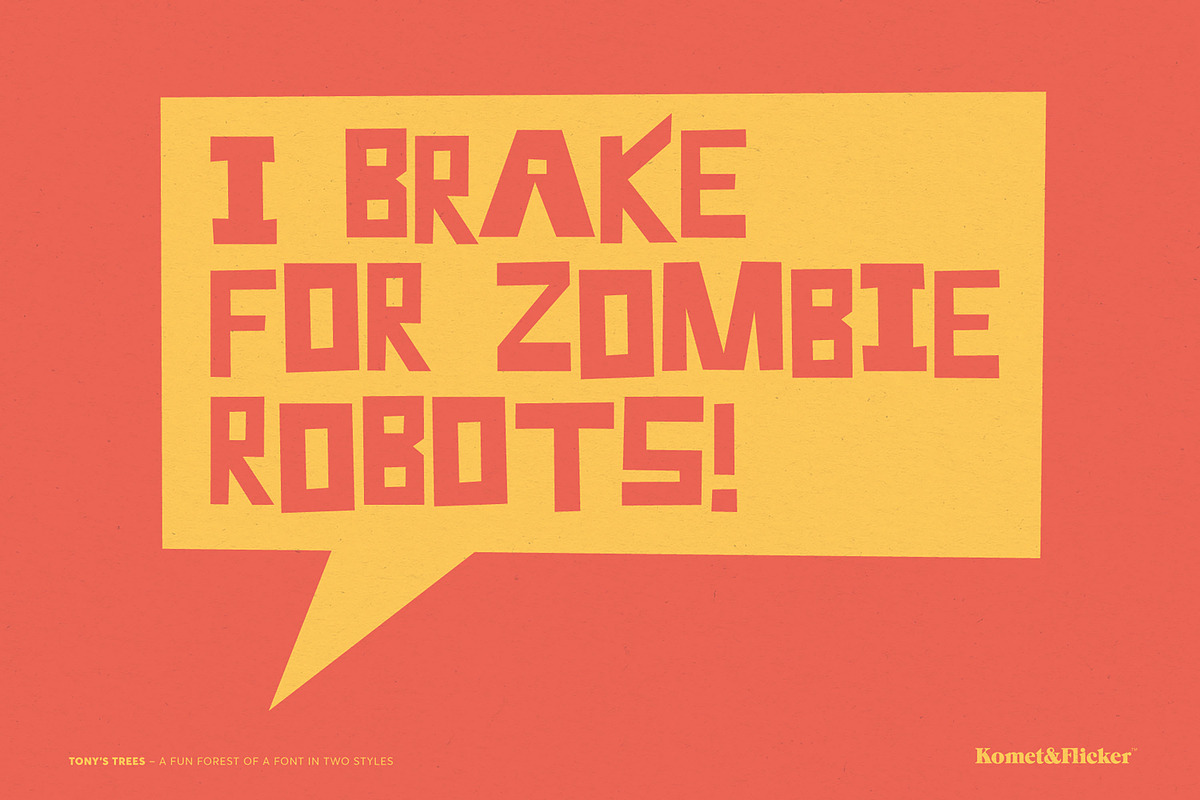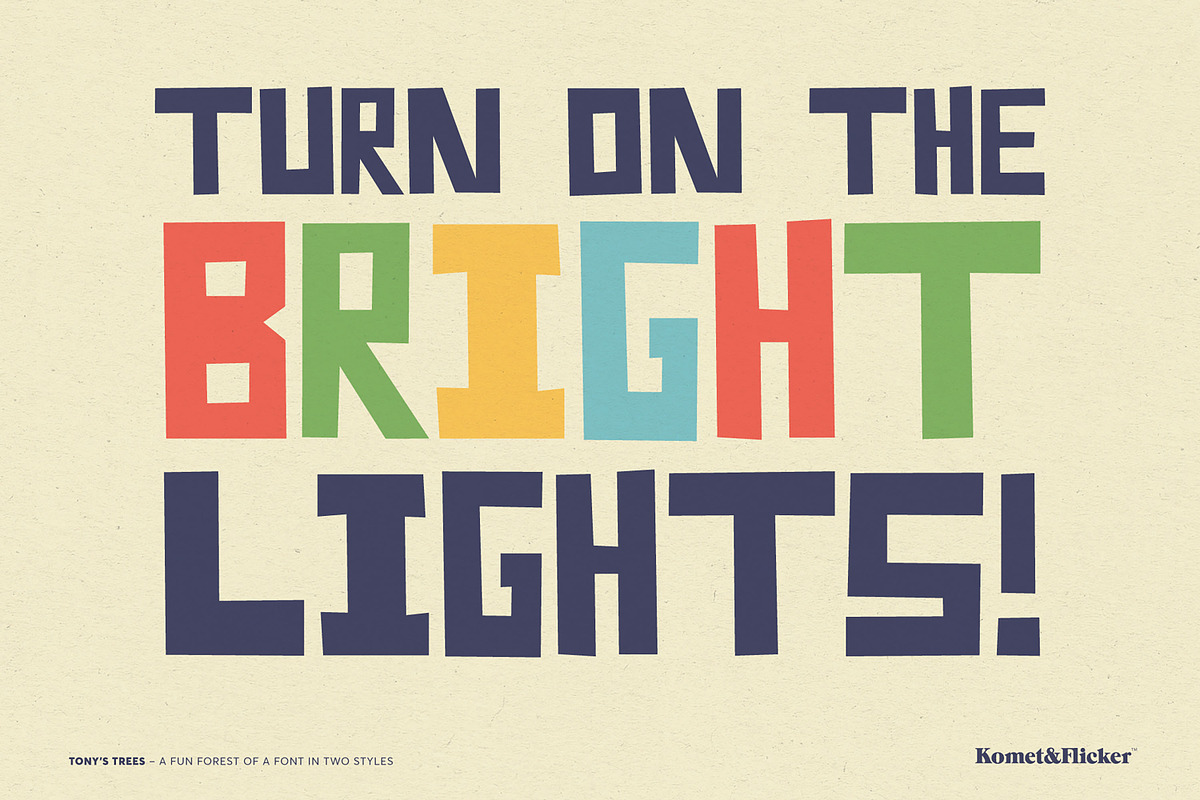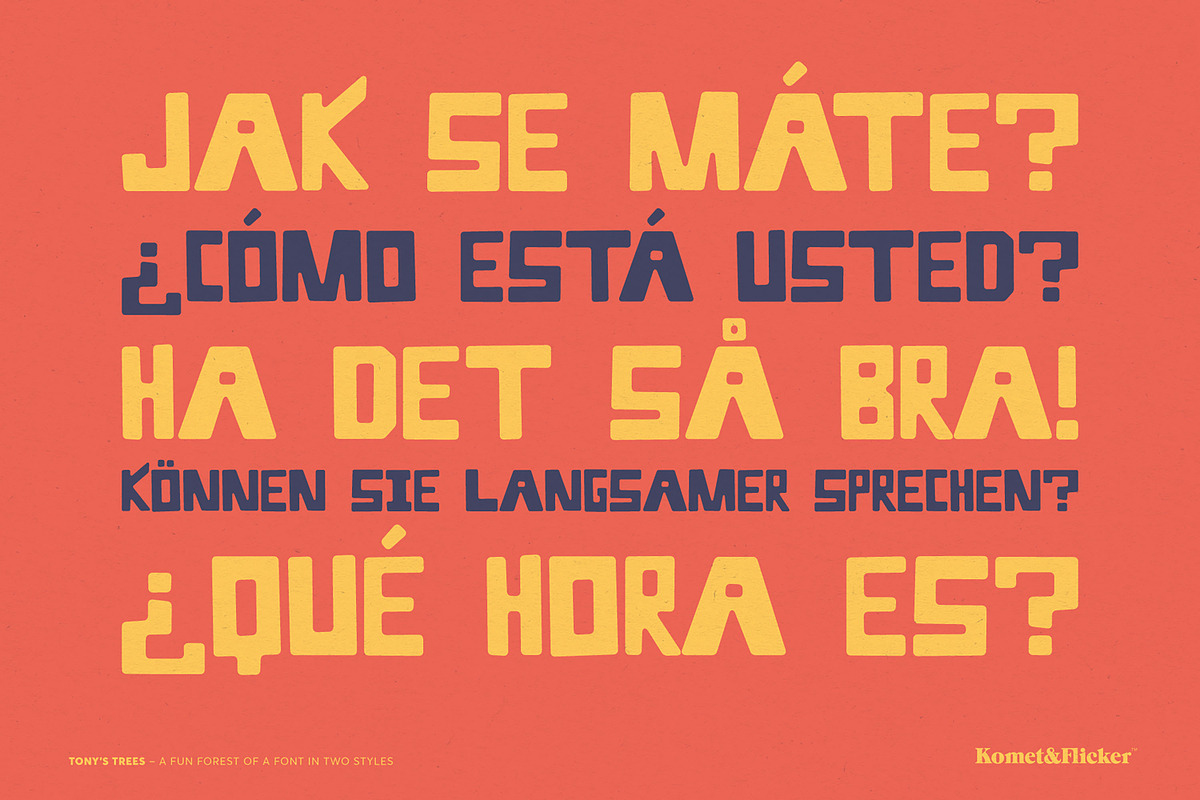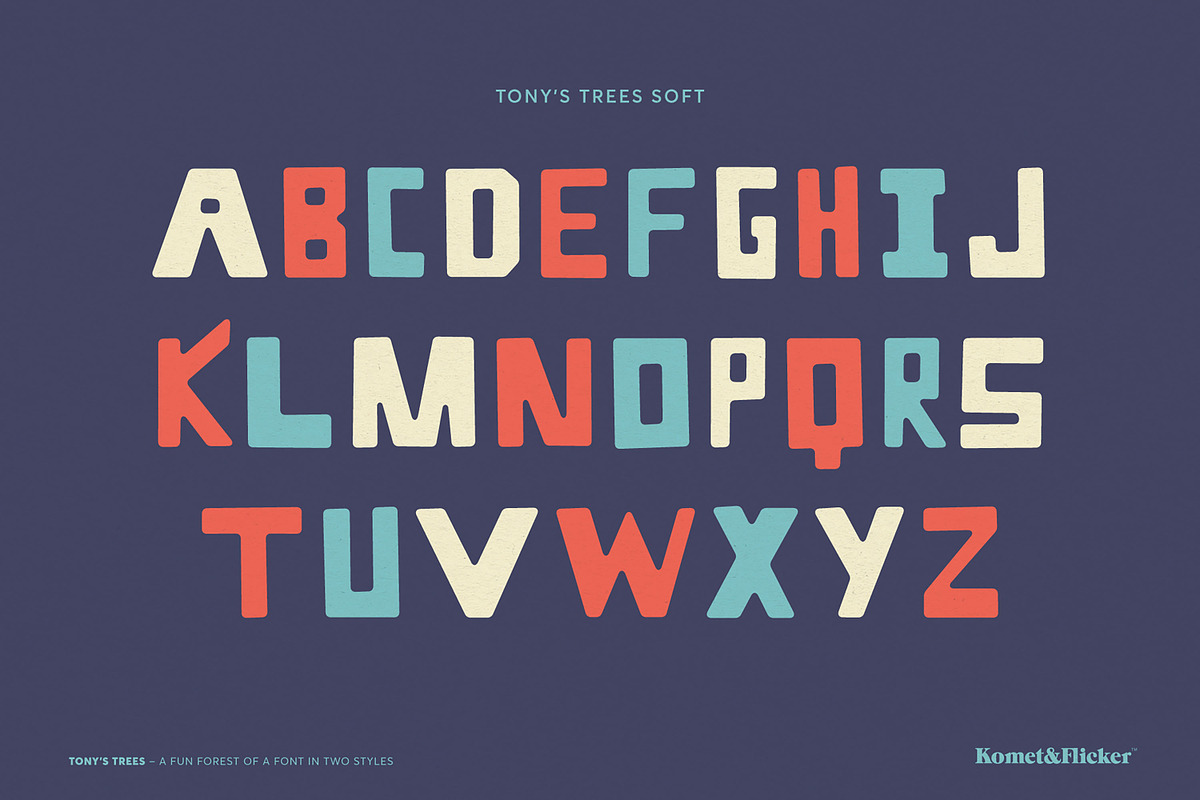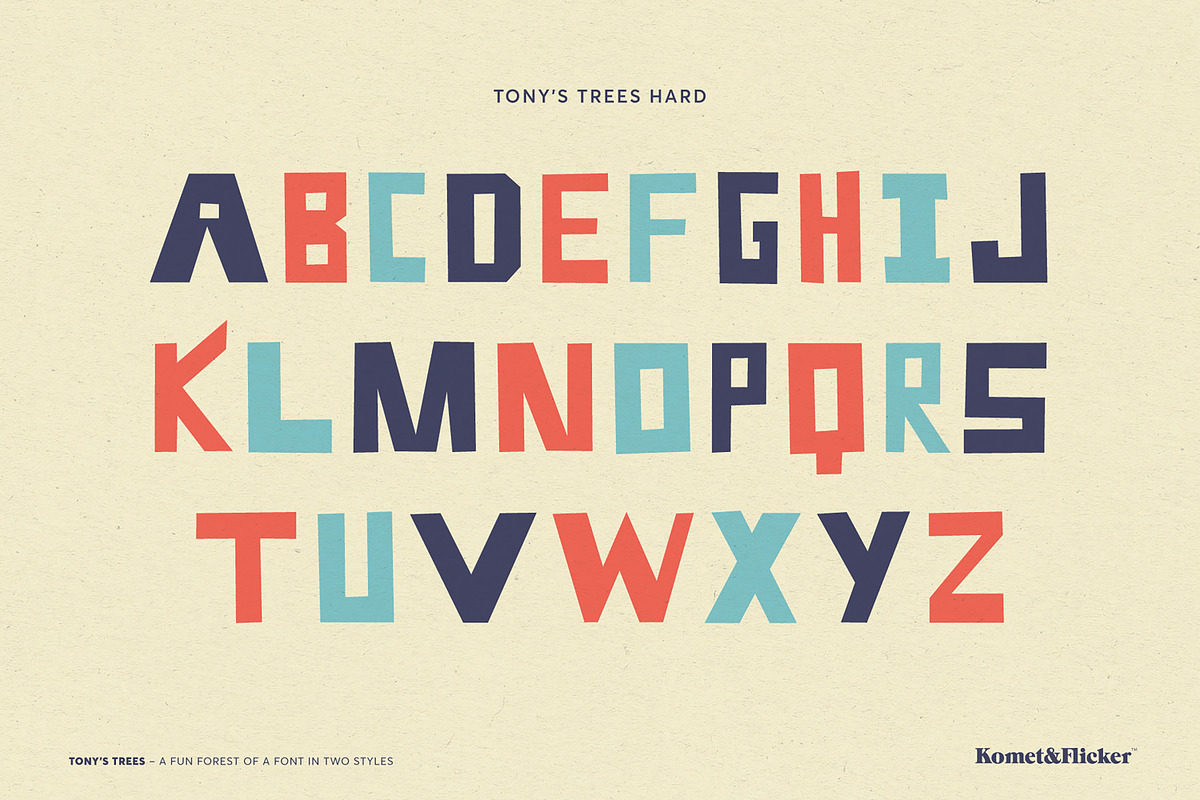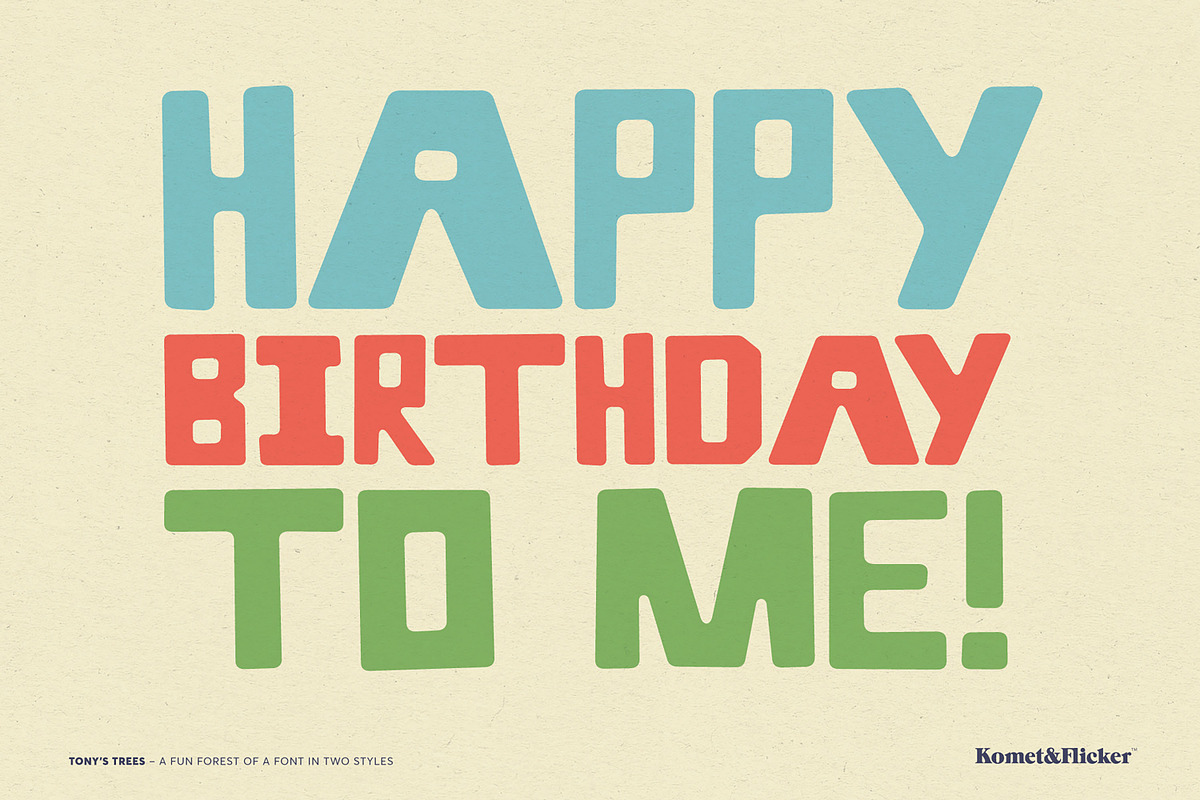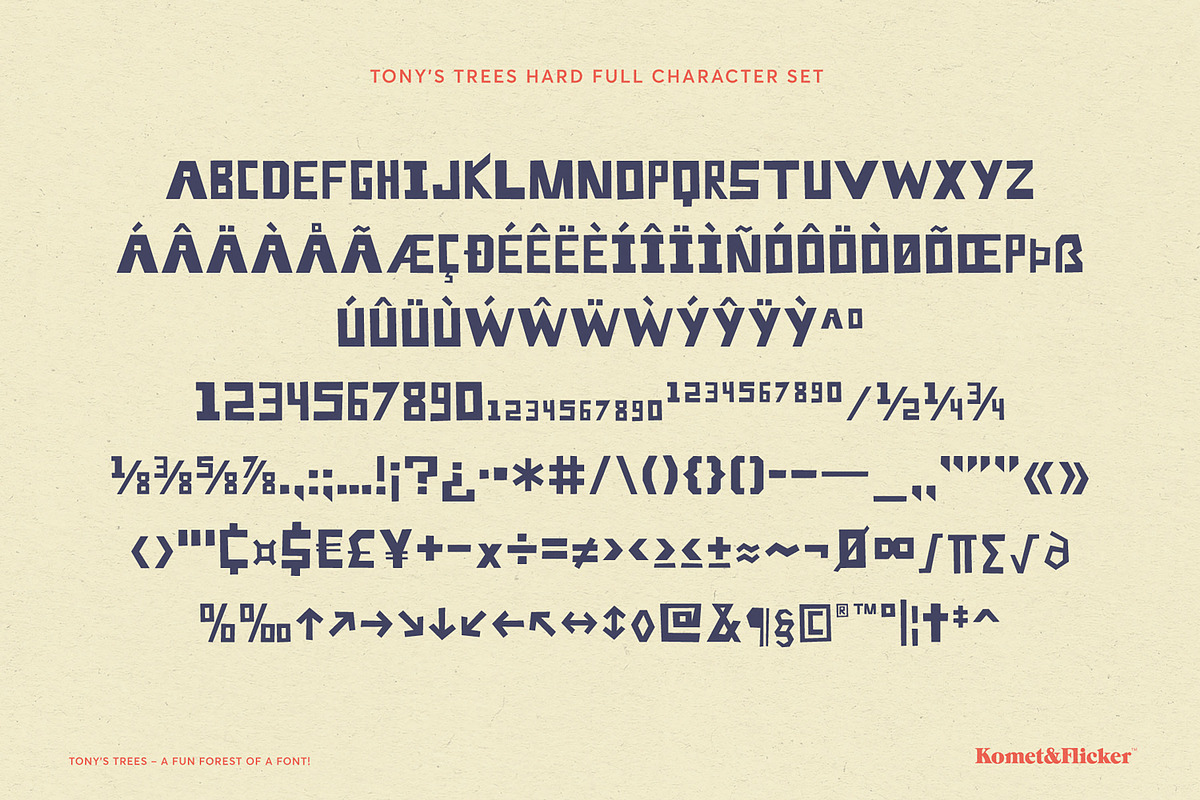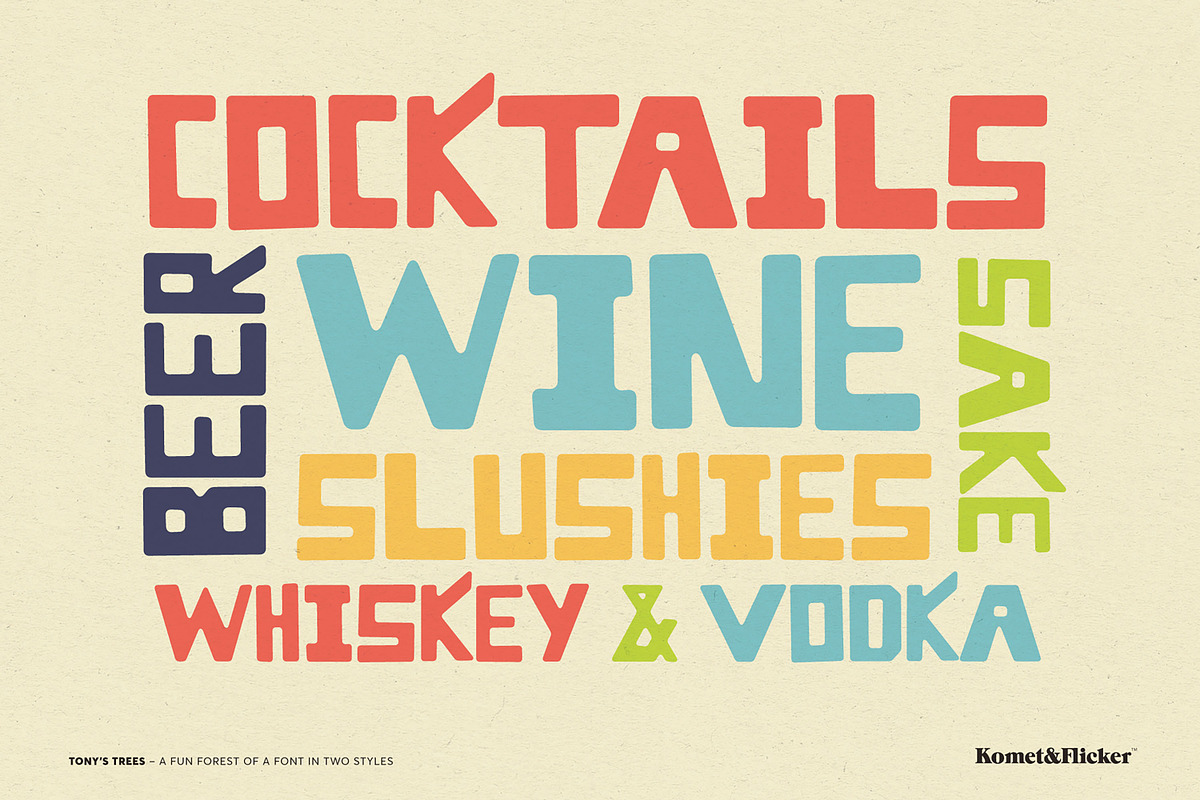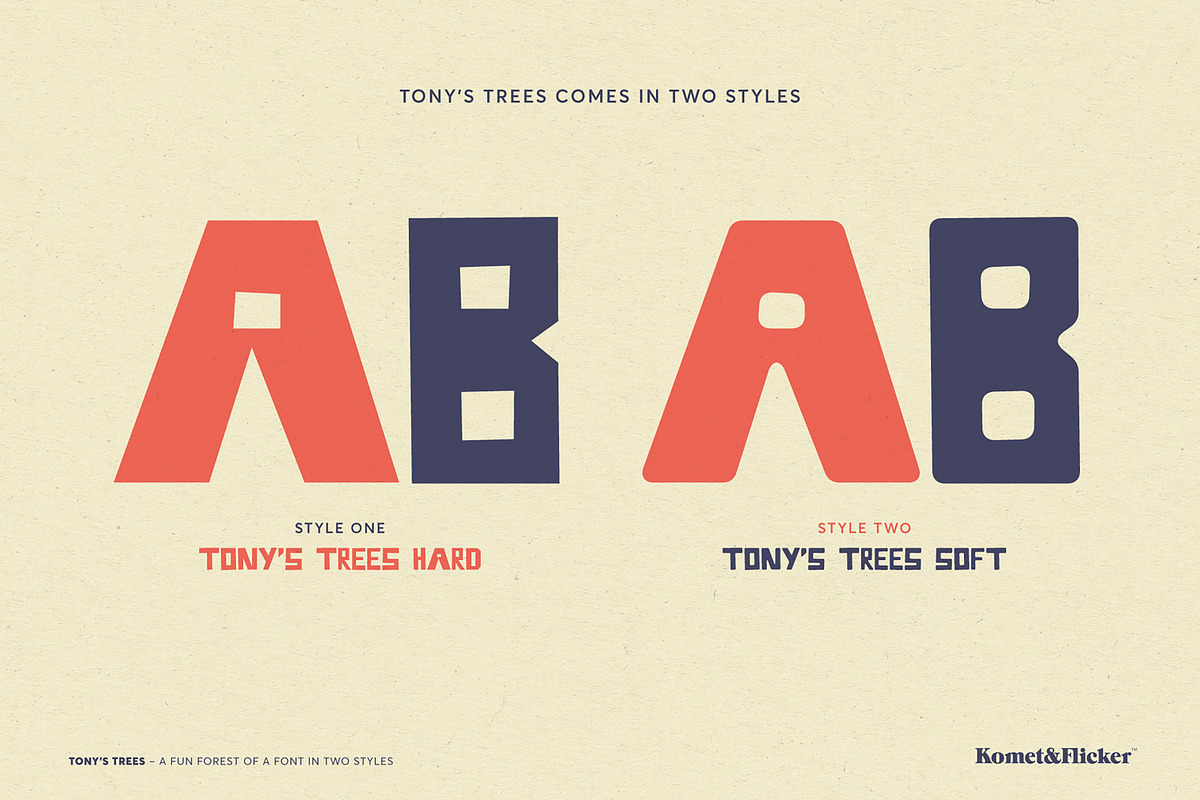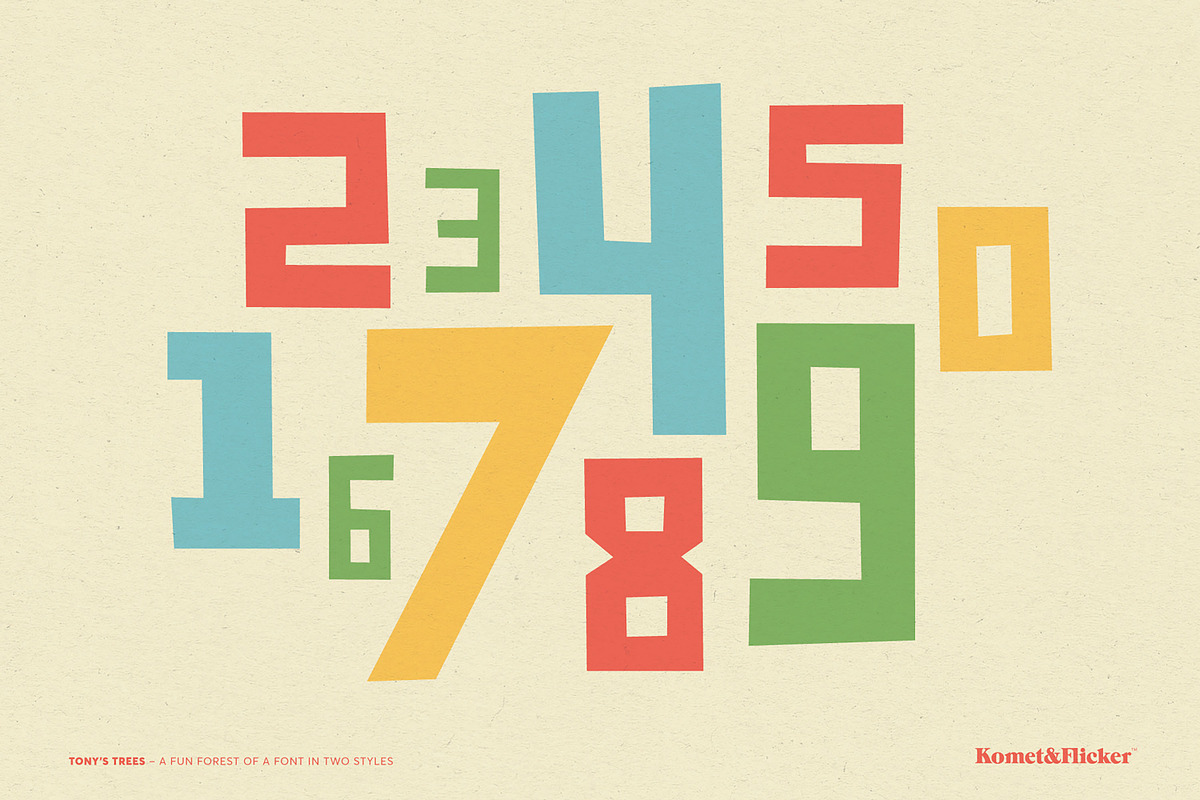
Tony's Trees - A Fun Forest Font!
Inspired by the handmade signs down at the local Christmas tree lot, Tony's Trees is loose cut-paper style font that works great for branding projects, posters, banners, t-shirts, party invites – anywhere you want to communicate a fun and funky message.
This font comes in two styles: a hard version with sharp, crisp edges and a soft version with rounded corners. Both styles include a complete set of numbers, punctuation marks, and extended characters. Also, the lowercase characters are set slightly above the baseline so mixing uppercase and lowercase will give you a loose and playful rhythm to your words and sentences.